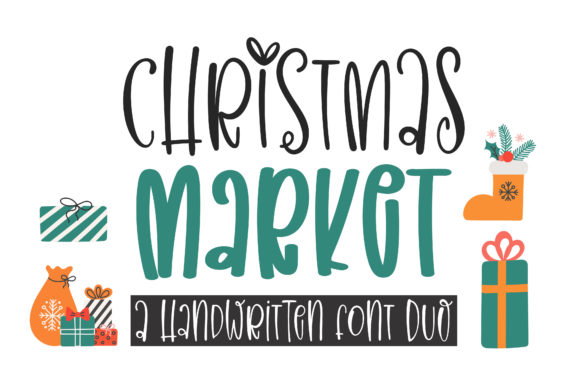
Christmas Market Font: A Cute and Relaxed Handwritten Font Duo for Your Holiday Designs
The holiday season is upon us, and with it comes the need for festive and fun designs that capture the spirit of Christmas. One of the most important elements of any design is the font, and that’s where Christmas Market Font comes in. This cute and relaxed handwritten font duo is perfect for adding a touch of holiday cheer to your projects. In this article, we’ll take a closer look at Christmas Market Font, its features, and how you can use it to create amazing holiday designs.
What is Christmas Market Font?
Christmas Market Font is a handwritten font duo that consists of two fonts: a regular font and a bold font. The font is designed to have a natural and unique style that makes it suitable for a variety of design ideas. The font is perfect for creating holiday-themed designs, such as Christmas cards, invitations, and posters.
The font features a cute and relaxed style that is reminiscent of handwritten text. The letters are carefully crafted to have a personal and friendly feel, making it perfect for designs that require a touch of warmth and personality.
Benefits of Using Christmas Market Font
There are many benefits to using Christmas Market Font for your holiday designs. Here are a few:
• Unique and eye-catching: Christmas Market Font has a unique and eye-catching style that will make your designs stand out from the crowd.
• Easy to read: The font is carefully crafted to be easy to read, even at small sizes.
• Versatile: The font duo includes two fonts, making it versatile and suitable for a variety of design ideas.
• Holiday-themed: The font is specifically designed for holiday-themed designs, making it perfect for Christmas cards, invitations, and posters.
How to Use Christmas Market Font
Christmas Market Font is a versatile font that can be used for a variety of design ideas. Here are a few examples:
• Christmas cards: Use Christmas Market Font to create festive and fun Christmas cards that will delight your friends and family.
• Invitations: Use the font to create holiday-themed invitations for parties, events, and gatherings.
• Posters: Use the font to create eye-catching posters for holiday events, sales, and promotions.
• Social media graphics: Use the font to create festive and fun social media graphics that will engage your followers.
Pairing Christmas Market Font with Other Fonts
Christmas Market Font can be paired with other fonts to create a unique and interesting design. Here are a few suggestions:
• Serif fonts: Pair Christmas Market Font with a serif font, such as Times New Roman or Garamond, to create a classic and elegant design.
• Script fonts: Pair the font with a script font, such as Pacifico or Great Vibes, to create a fun and playful design.
• Display fonts: Pair the font with a display font, such as Arial Black or Impact, to create a bold and eye-catching design.
Tips for Using Christmas Market Font
Here are a few tips for using Christmas Market Font:
• Use it sparingly: Use Christmas Market Font sparingly to create a focal point in your design.
• Experiment with colors: Experiment with different colors to find the perfect combination for your design.
• Pay attention to spacing: Pay attention to the spacing between letters and words to ensure that your design is easy to read.
In conclusion, Christmas Market Font is a cute and relaxed handwritten font duo that is perfect for adding a touch of holiday cheer to your designs. With its unique and eye-catching style, ease of use, and versatility, it’s a great choice for a variety of design ideas. Whether you’re creating Christmas cards, invitations, posters, or social media graphics, Christmas Market Font is sure to delight.